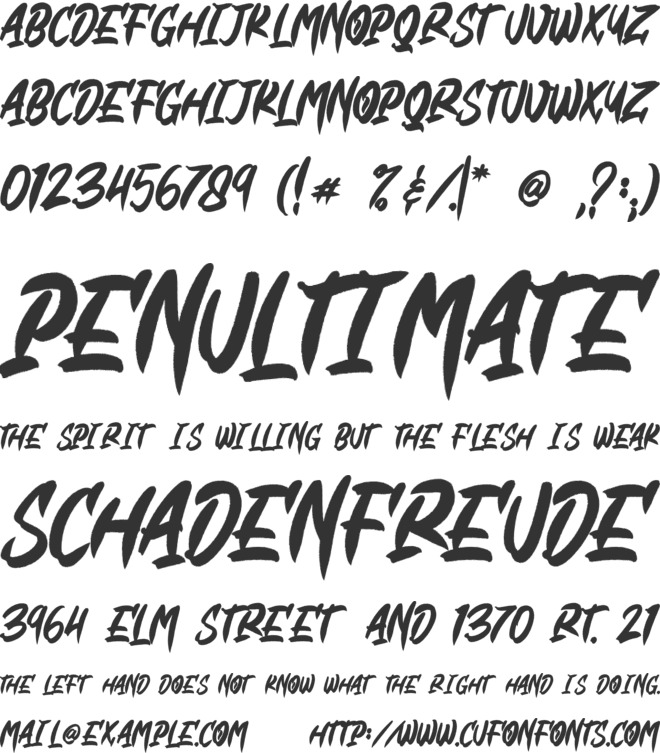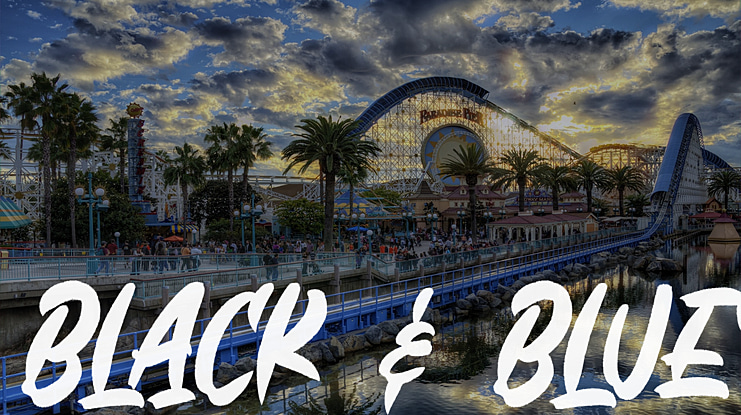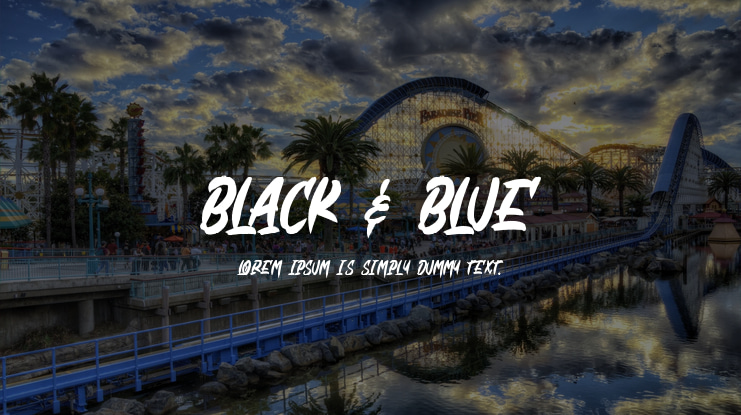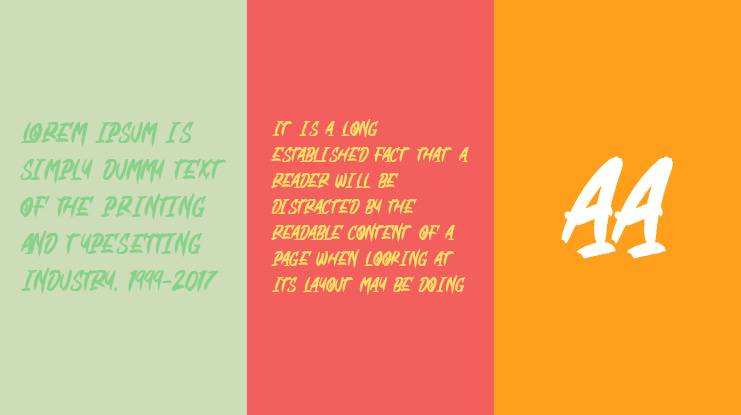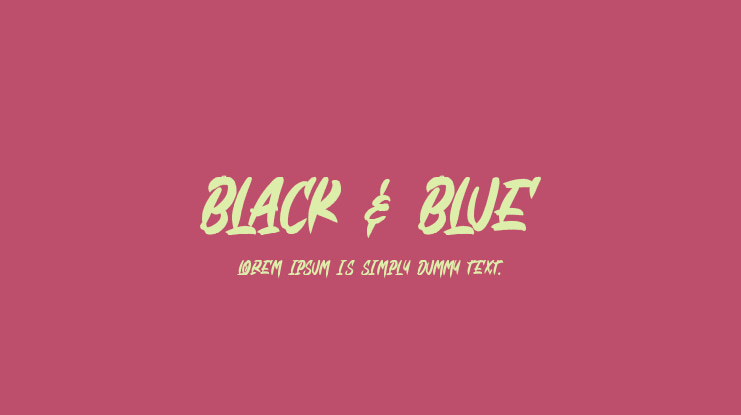
Black & Blue Font Family
DETAILS Black & Blue! A brush font with 3 styles, regular (clean), rough, and textured. Black & Blue font is ideal for logos, apparel, T-shirt, Hoodie, quotes, product packaging, or anything which needs a typographic turbo-boost.
Whats Include? 1. All Uppercase characters 2. Supports international languages 3. Numerals & punctuations, stylistic alternates, and ligatures 4. Accessible in the Adobe Illustrator Glyphs panel, or under Stylistic Alternates in the Adobe Photoshop OpenType menu, Adobe InDesign, Corel Draw, even work on Microsoft Word. 5. TTF and OTF files 6. Multilingual support.